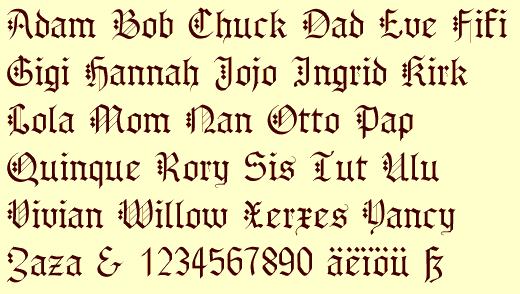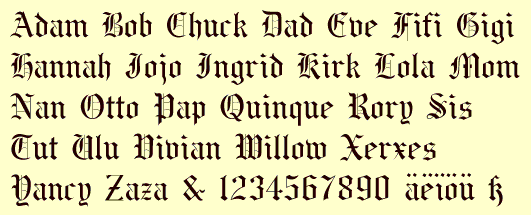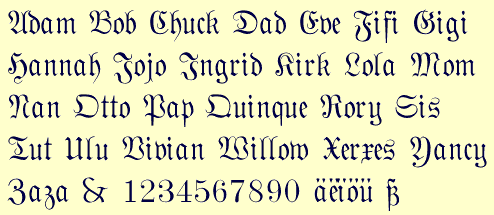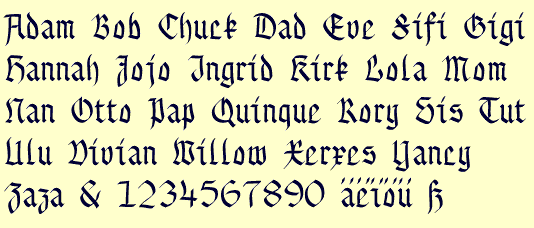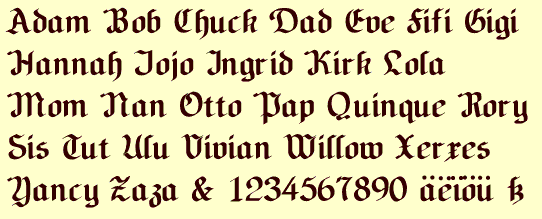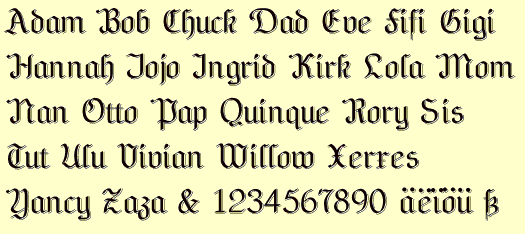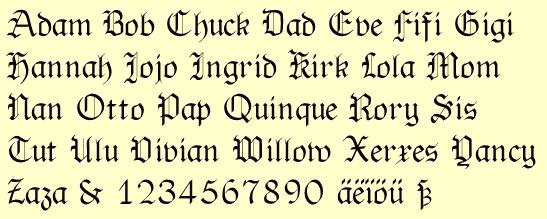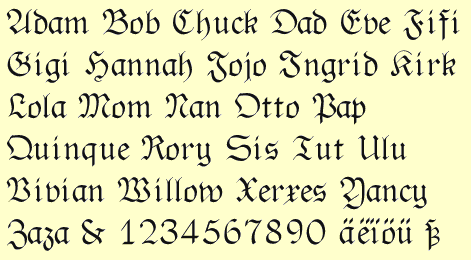
The old Medieval style fonts are a calligraphic style that is today largely used for awards and certificates. It is too bad in a way because some of the type is very beautiful. Here are a number of examples of Medieval-styled fonts, with not much of a story to go with them. In fact there is no story at all, just a bunch of names and numbers.
The typeface above is called BeneScriptine. It is a fairly traditional "Old-English" style, though it was inspired by a nineteenth century typeface.
AlbertBetenbuch, above, was inspired by calligraphy from Albert Duerer. It also makes very pretty certificates.
OldHaroldRee is a pun as well as a typeface. The lower-case letters were developed as part of a calligraphic Fraktur face, and the upper-case letters were then added to make it more of an Old-English font. It comes in two weights, plain and bold. This is the plain style.
Phraxtured is a Fraktur typeface inspired by an 120-year-old German language publication that was aimed at German immigrants to the US. Fraktur faces were the primary German typefaces until the twentieth century. Use of the calligraphic typefaces for text quickly died out in most of the rest of Europe soon after the invention of the printing press.
PhederFract is a calligraphic version of Fraktur. You might note that the lower case letters are the same as in OldHaroldRee. This typeface comes in three weights, thin, plain and bold. This is the plain version.
Fraktur always had variations, and this is one attempt at a variation inspired by a typeface from the nineteenth century. It comes in both plain and bold, and the above is the bold version. Below you will see a decorated version, with a line shadow.
NeuAltischShadowed
is the name of the above face.
This is a medieval looking typeface from a different tradition. There was so much variety and class in the old medieval faces that it is painful to see how neglected they are and how popular stuff like grunge is. This face comes in two variations, one thinner and one bolder. It is called Gothemberg and this is the bolder version.